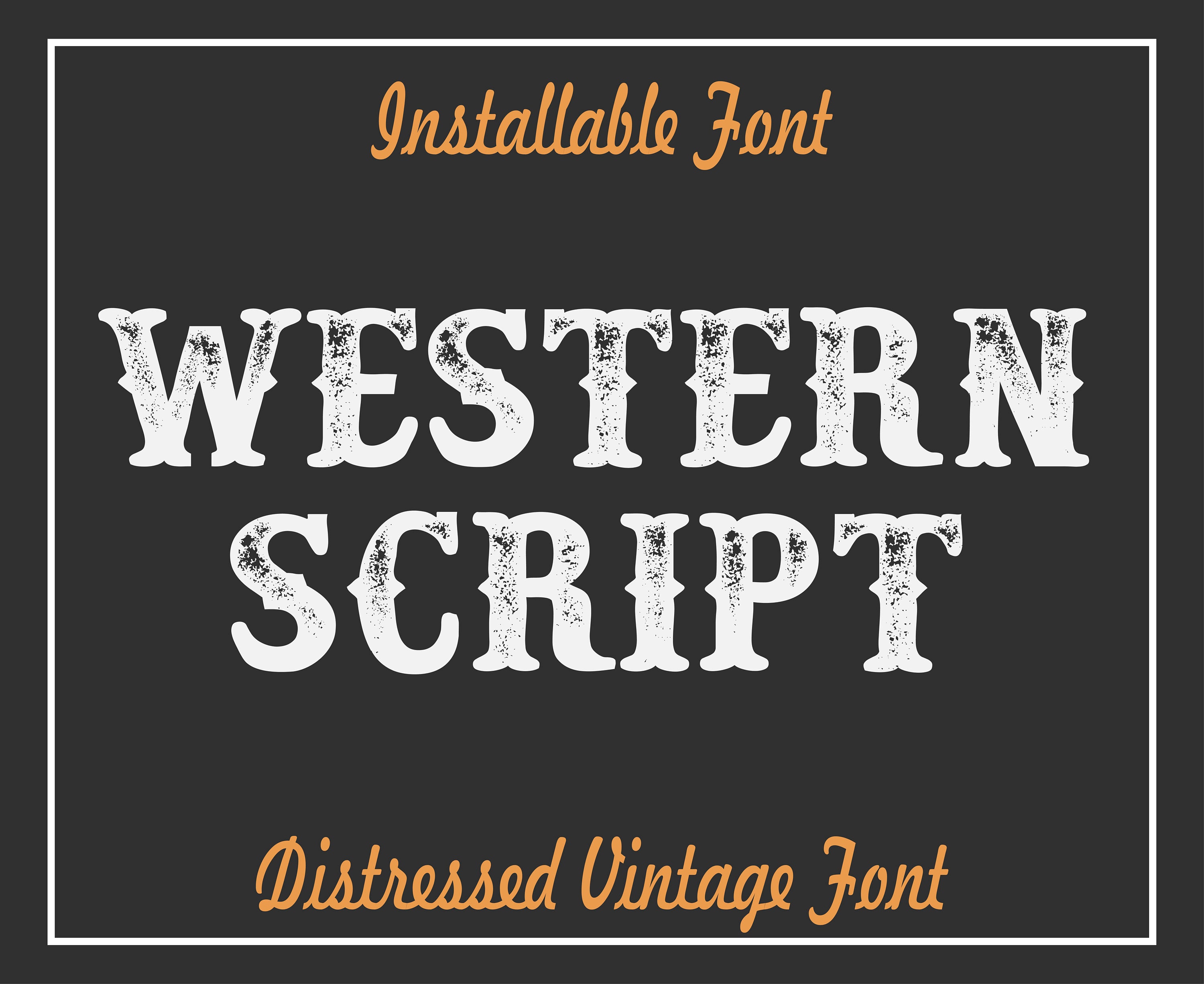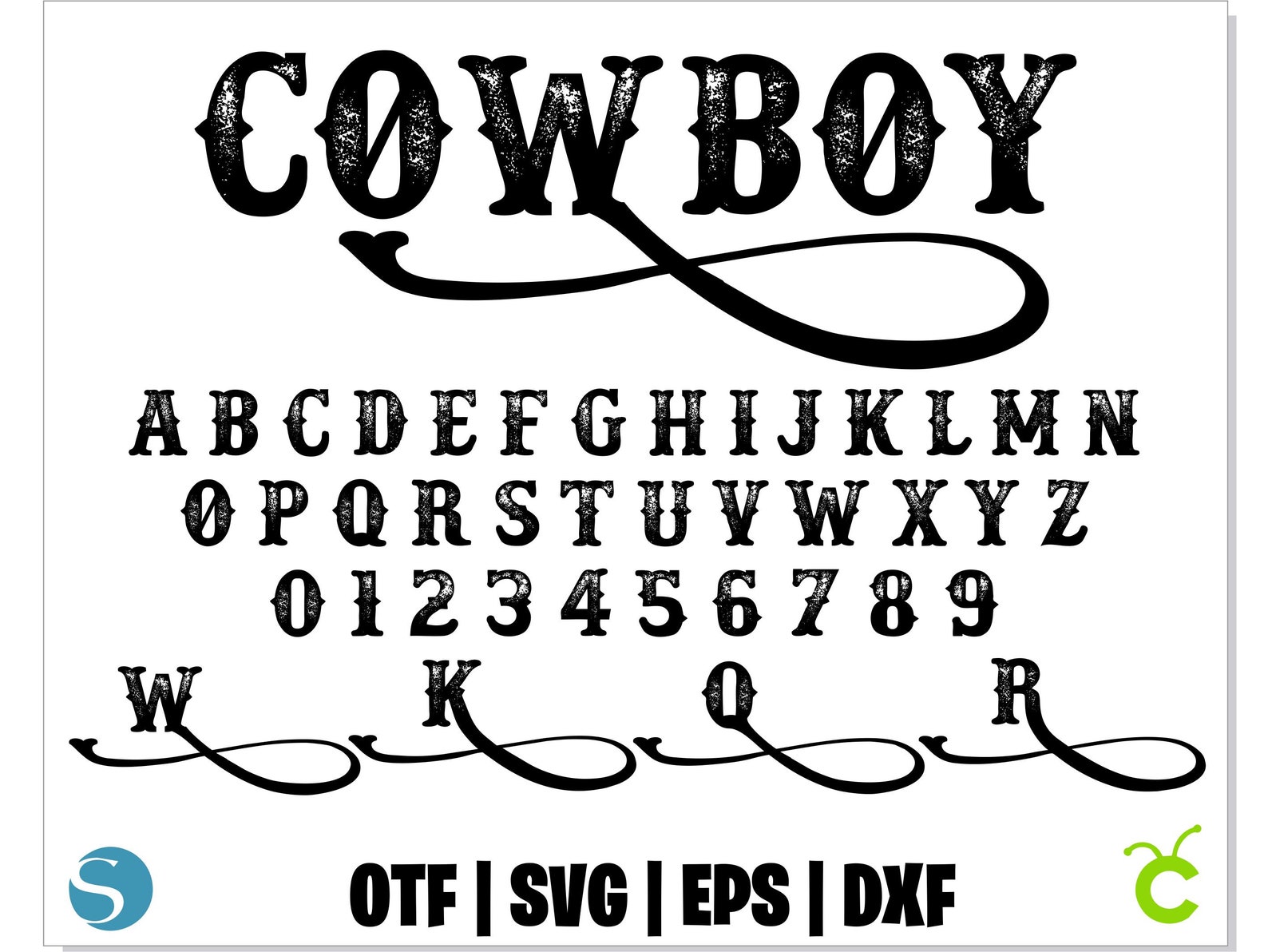
What Font Is Western Style On Word . The internet has a vast collection of fonts that will. Western is a typeface style originating from the us wild west that evokes the memories of cowboy clothing and saloon interiors. A strong slab serif, this cowboy western font comes in three styles, which can be combined to create your own. Search the adobe fonts library by name, foundry, designer, or keyword—or upload an image to match your type sample with visual search. The western writing style is characterized by solid.
The internet has a vast collection of fonts that will. A strong slab serif, this cowboy western font comes in three styles, which can be combined to create your own. Search the adobe fonts library by name, foundry, designer, or keyword—or upload an image to match your type sample with visual search. The western writing style is characterized by solid. Western is a typeface style originating from the us wild west that evokes the memories of cowboy clothing and saloon interiors.